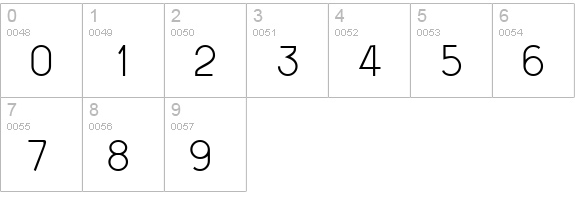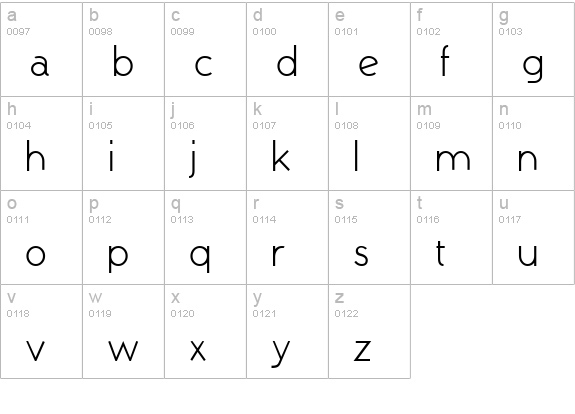
AndrewAndreas Plain Font Details
AndrewAndreas Plain font is a sleek and versatile typeface that exudes modern simplicity. With its clean lines and classic appeal, this font is perfect for a wide range of design projects. Whether you're creating professional documents, sleek logos, or stylish branding materials, AndrewAndreas Plain font is sure to make a statement. What's even better is that AndrewAndreas Plain font is available for free download at FontsMarket.com. That's right, you can easily access this high-quality font without having to spend a dime. So why wait? Elevate your designs with AndrewAndreas Plain font today and watch your projects come to life with style and sophistication.